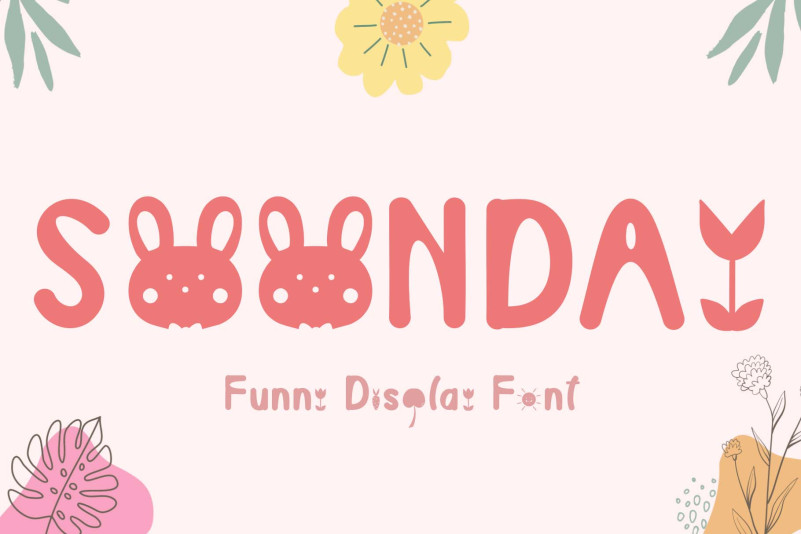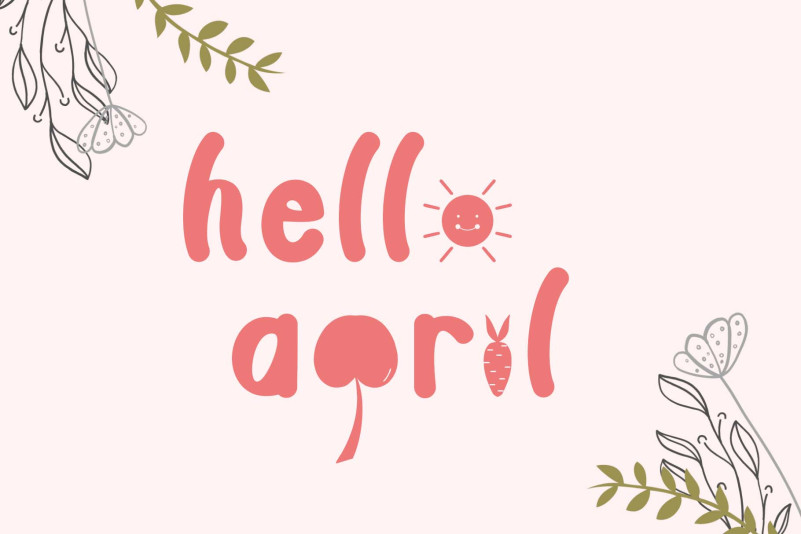
Soonday Font
Soonday Display Font is a playful and cheerful typeface that’s sure to bring a smile to anyone’s face! With its bold and vibrant letterforms, this font is perfect for adding a fun and energetic touch to your designs. Whether you’re creating posters, social media graphics, or branding materials, this font will help you stand out from the crowd with its joyful and uplifting vibe.